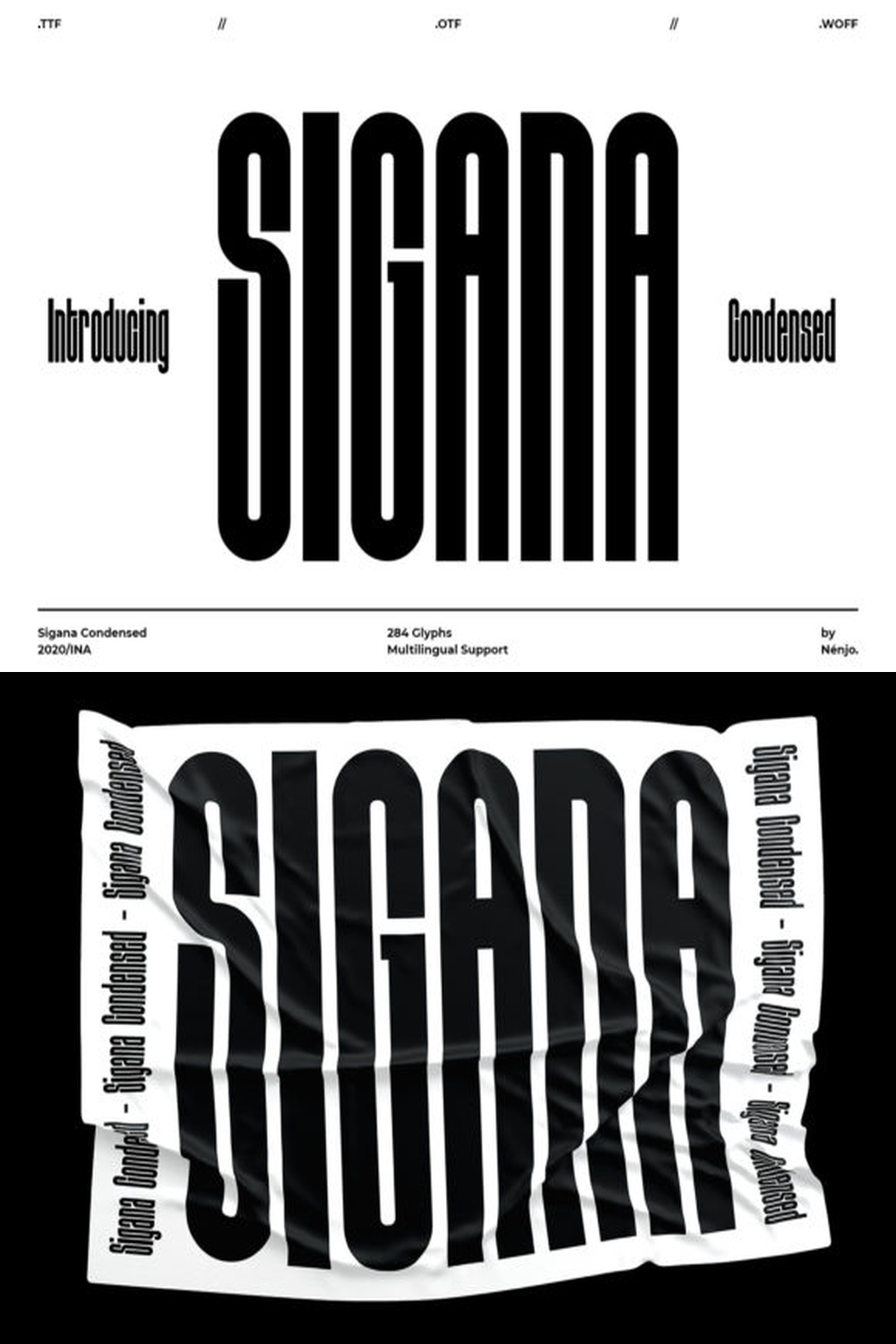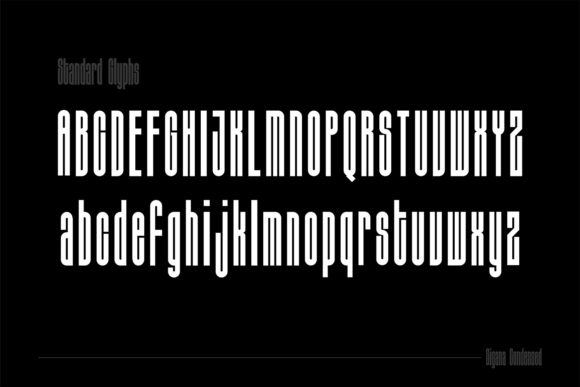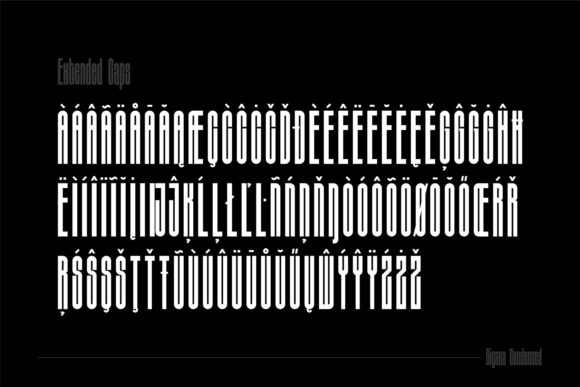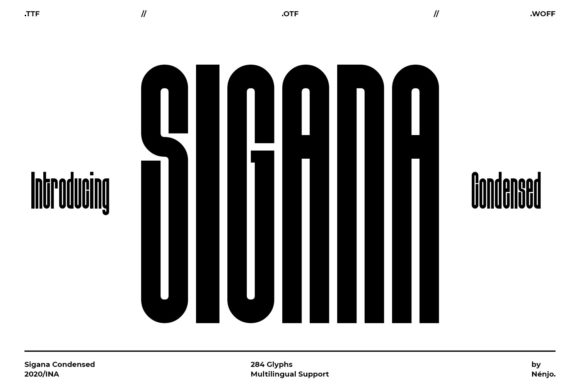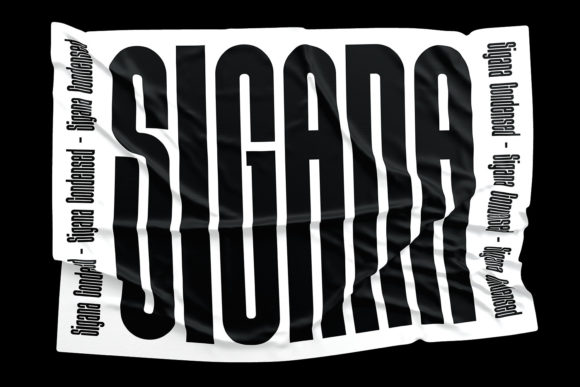
Sigana Font: Modern Display Font for Bold Logo Design & Branding
About the Sigana Font
Add a touch of class to your work with the Sigana Font, a truly exceptional typeface. Sigana is a modern, tall, condensed display font, that fits perfectly into anything that is casual or cool. Its attractive charm makes it look very down to earth, easy to read, and versatile.
Sigana Font Usage Examples